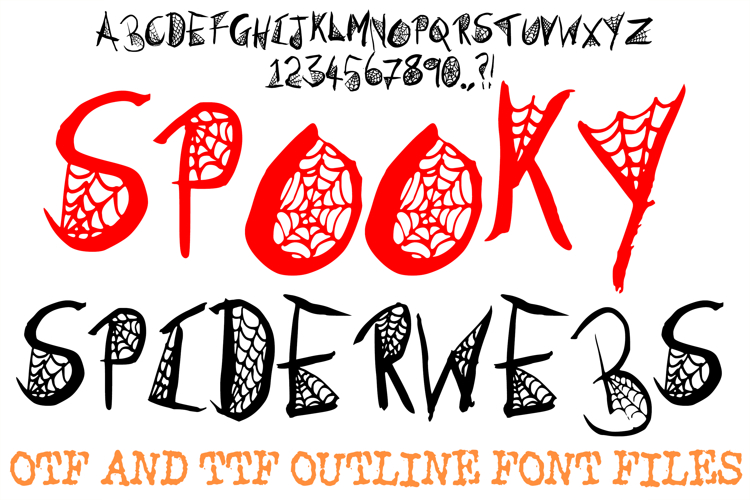
The Spooky Spiderwebs Font is a haunting, hand-drawn display typeface that captures the intricate, eerie beauty of a spider’s lair. Featuring sharp, spindly ink strokes and delicate web-filled counters, this font is the perfect choice for Halloween branding, horror-themed apparel, gothic stationery, and dark "cottagegore" aesthetic designs.
Each character is meticulously crafted with a jagged, artisan feel, blending aggressive points with fine, silken webbing that makes your text appear as if it were spun in the shadows. Whether you are a designer creating cinematic posters or a crafter working on spooky party favors, the Spooky Spiderwebs Font adds a chilling, authentic touch to every project.
Artisan Webbed Lettering: Every letter (A–Z) and number (0–9) features unique, hand-drawn spiderweb patterns woven directly into the anatomy of the character.
Dark & Versatile: The spindly weight and "unhinged" aesthetic make it ideal for true crime branding, heavy metal graphics, and sophisticated gothic holiday decor.